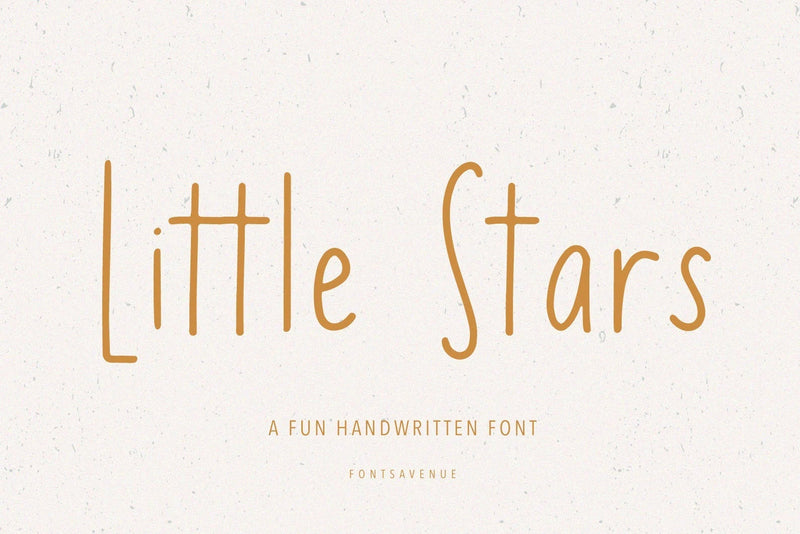
Little Stars | Cute Kids Sans Serif Font
Little Stars is a fun and cute kids handwritten font, perfect for invitations, birth announcements, logo design, stickers, quotes and much more!
- Uppercase and lowercase letters
- Accented characters